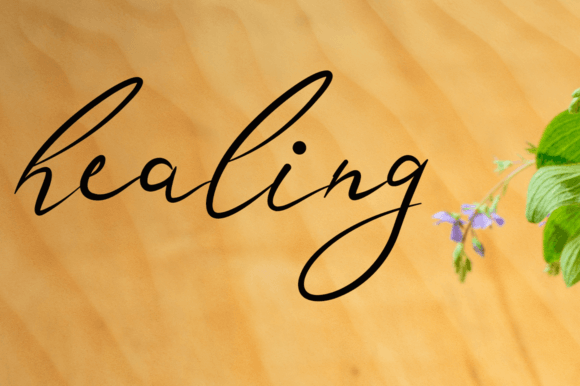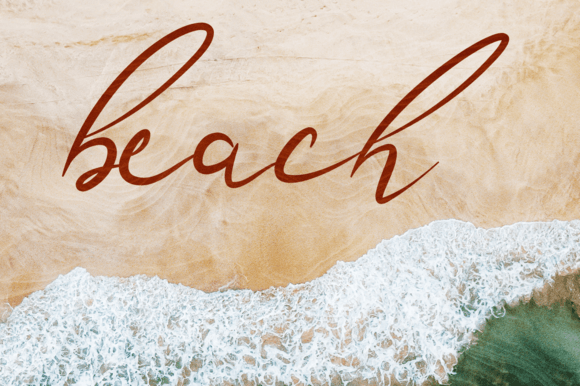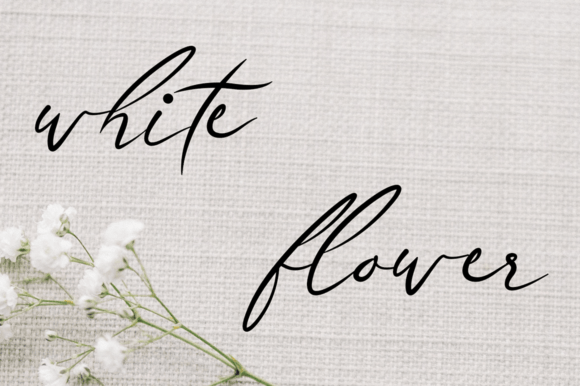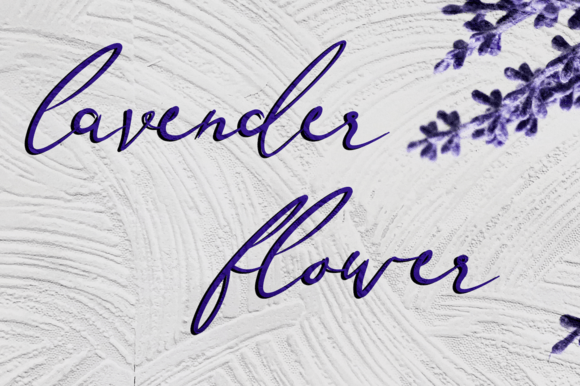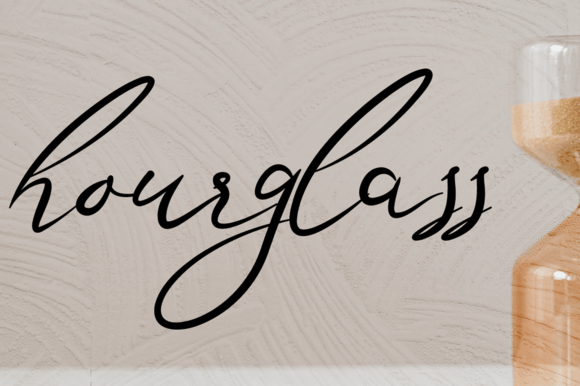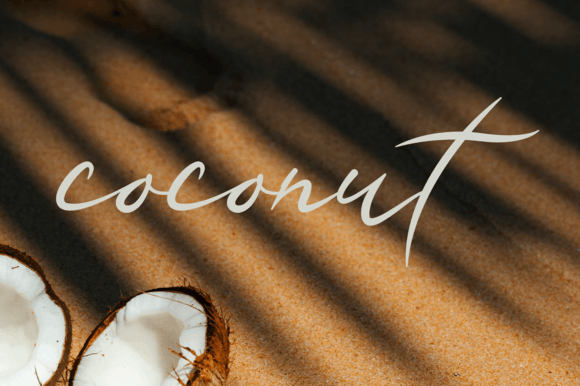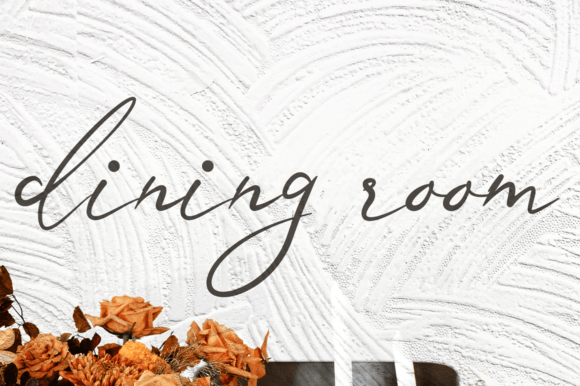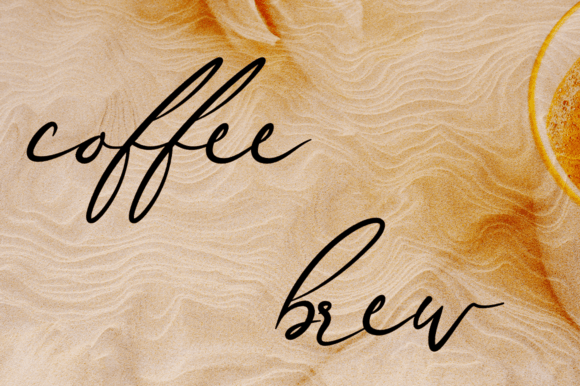
About Lovely Font
“Lovely: Where Elegance Meets Simplicity in Handwriting
Introducing Lovely, an exquisite handwritten font that effortlessly combines elegance, simplicity, and charm. With its natural and attractive style, Lovely is the perfect choice for a wide array of creative applications, whether you’re working on art projects, wall paintings, party invitations, or any design that craves a genuine, handwritten touch.
The beauty of Lovely lies in its simplicity and grace. Its carefully crafted letterforms capture the essence of natural handwriting, adding a personal and heartfelt touch to your designs. Imagine your art projects adorned with Lovely’s elegant strokes, transforming them into visual poetry. Envision your party invitations featuring its attractive and inviting script, setting the tone for a delightful celebration. With Lovely, your designs come to life with authenticity and charm, leaving a lasting impression on your audience.
One of Lovely’s standout features is its versatility. Its elegant yet simple design makes it suitable for a wide range of creative endeavors. Whether you’re creating wall paintings, crafting personalized stationery, designing event invitations, or adding a handwritten element to digital graphics, Lovely adapts seamlessly, enhancing your projects with its natural and appealing handwriting.
Moreover, Lovely is more than just a font; it’s an artistic expression. Its genuine and attractive style evokes a sense of warmth and friendliness, making it a favorite choice among designers and enthusiasts seeking authenticity in their creations. Its presence adds a touch of sincerity to your designs, making them relatable and engaging.
In a world where genuine connections matter, Lovely helps you make a statement. It speaks the language of elegance and simplicity, resonating with those who appreciate the beauty of handwritten artistry. Whether you’re designing for personal joy or special occasions, Lovely becomes your trusted companion, guiding you toward design excellence.
So, why settle for ordinary when you can embrace the extraordinary with Lovely? Let this elegant handwriting font be the muse for your creative expressions, and watch as your projects come to life with simplicity, charm, and authenticity. Let your creativity flow, and let Lovely be the brushstroke that paints your ideas into heartfelt masterpieces, leaving a lasting impression on the world.”